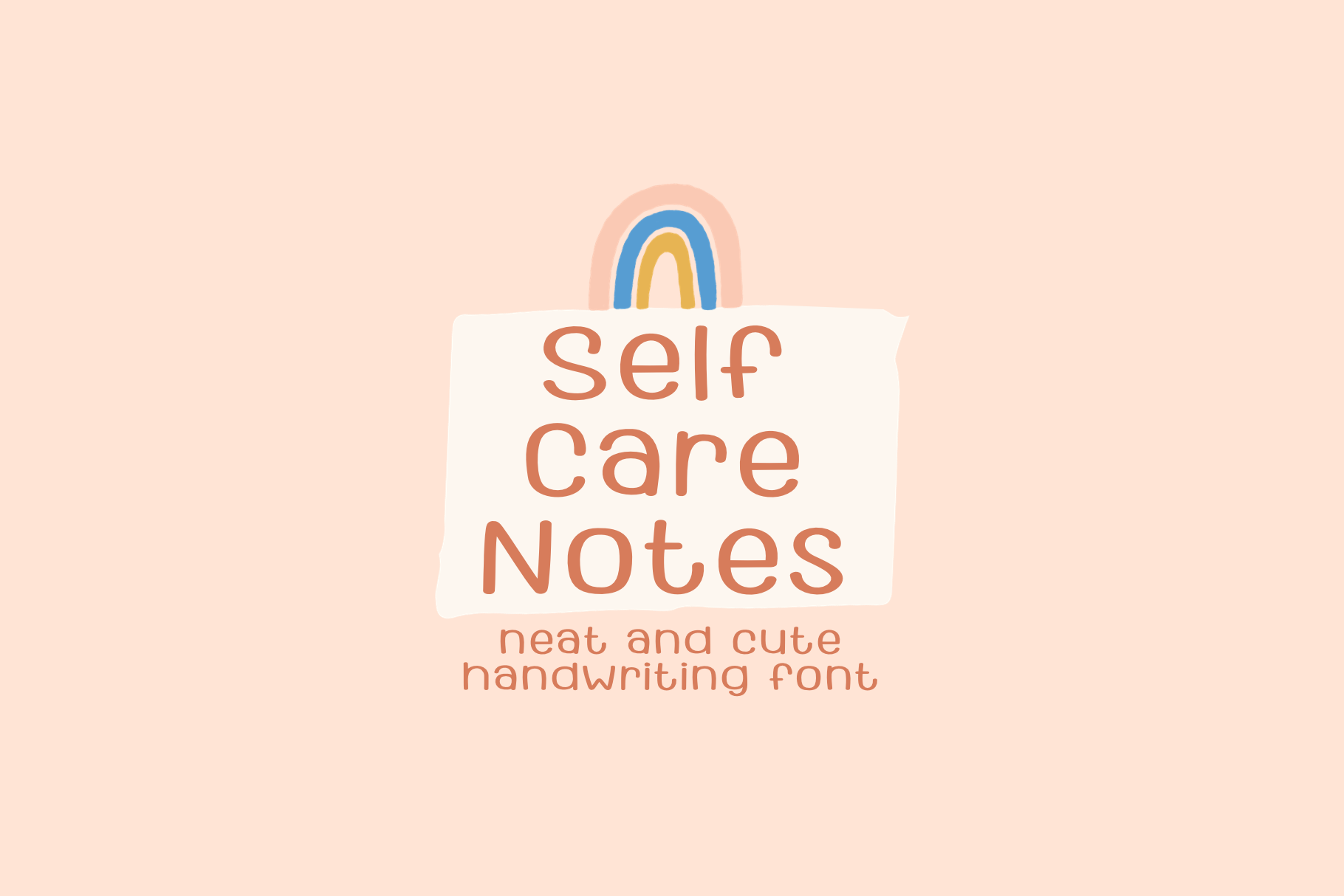
Self Care Note cute handwriting font
Self Care note, a clean and cute handwritten font. You can use this font in various projects - blog posts, digital planner, invitations, greeting cards, planners, photo albums, decorations and much more. Thank you :)